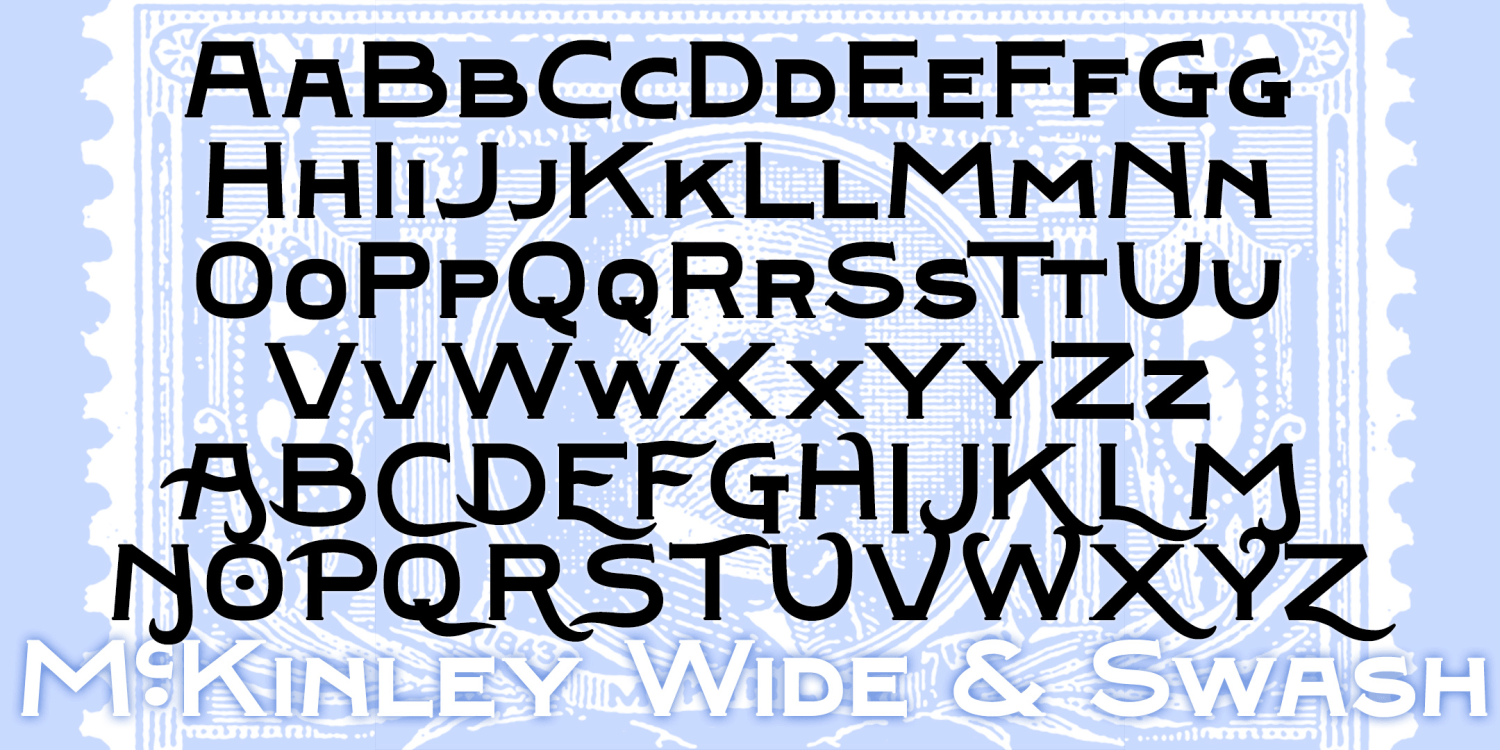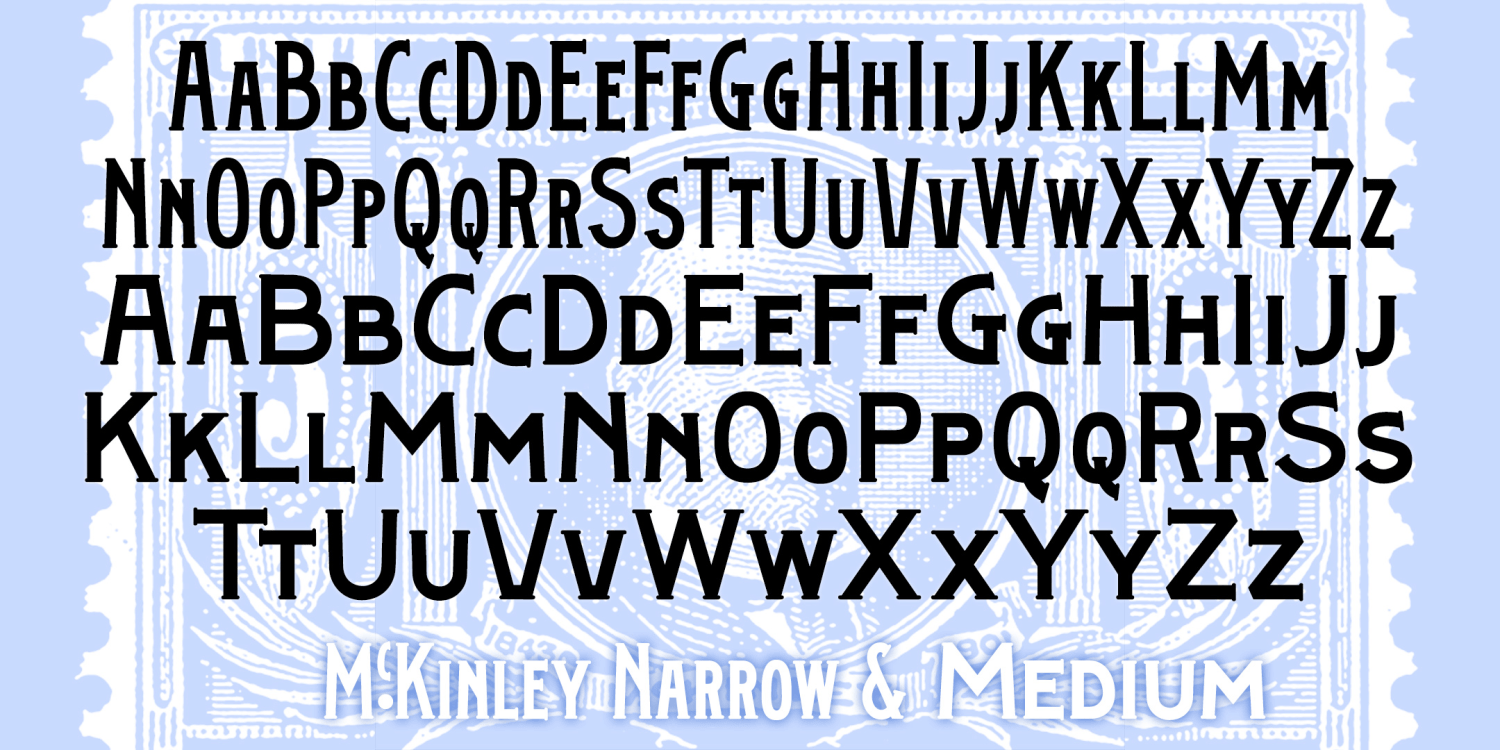
McKinley
About McKinley
McKINLEY is a series of fonts with the bold but graceful style of hand-painted signs, inspired by the titles of several early silent films, including The Great Train Robbery, The Kleptomaniac, and others directed by Edwin S. Porter for Edison Studios.…